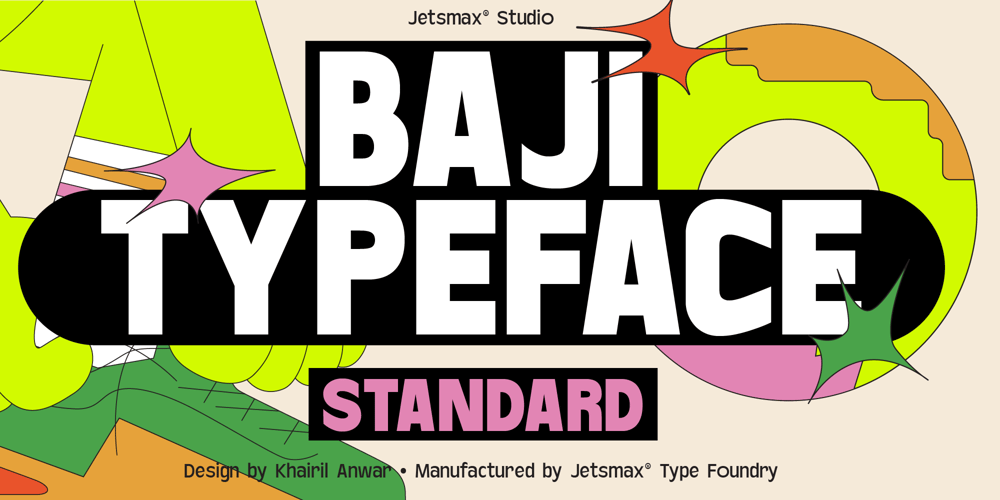
Baji Standard
Baji Standard font
Baji Standard Font Family was designed by Khairil Anwar and published by Jetsmax Studio. Baji Standard contains 9 styles and family package options. Baji Typeface is a versatile sans-serif typeface that offers three distinct sub-families: standard, rounded, and spiky. With its nine weight variations, it provides a wide range of options to suit different design needs.